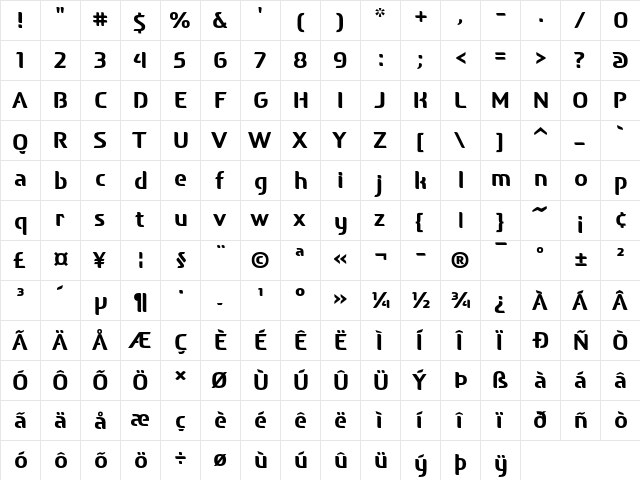
After Headline Bold
| Designer | Fabio Luiz Haag |
Design Context for After Headline Typeface
After Headline is a composed and adaptable typeface that performs quietly and consistently across a wide range of design contexts. Its bold stroke weight gives it real presence on the page.
Pro Tip: Pair After Headline with a font of contrasting weight or personality to build a more expressive typographic hierarchy.